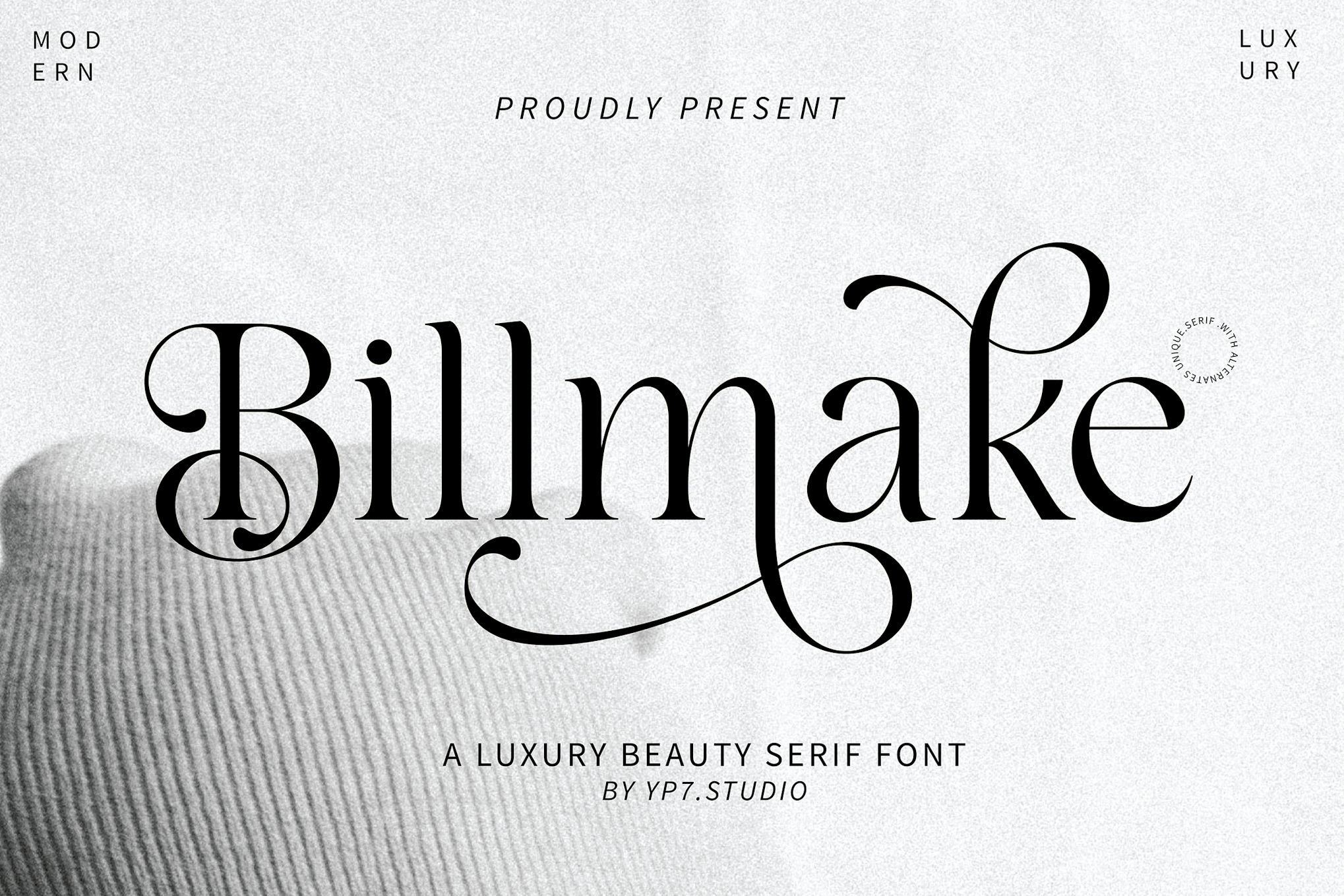
Luxury Serif Font
Luxury Serif Font is perfect for high-end fashion branding, premium jewelry advertising, upscale hotel identity, luxury automobile marketing, exclusive resort materials, sophisticated wine labels, elite magazine layouts, prestigious award ceremonies, and opulent wedding stationery.
What makes Luxury Serif Font exciting is its impeccable refinement that embodies the pinnacle of typographic elegance and sophistication. This exquisite typeface features meticulously crafted serifs, graceful stroke contrasts, and aristocratic proportions that instantly communicate exclusivity and premium quality. The font's distinguished character creates an immediate sense of prestige and luxury, making it indispensable for brands that cater to affluent clientele who demand nothing less than perfection in every detail of their luxury experience.
Luxury Serif Font family includes refined weight variations: Light, Regular, Medium, SemiBold, Bold, and Black, each available in both roman and italic styles. This prestigious collection provides 12 elegantly crafted fonts that enable designers to create sophisticated typographic hierarchies while maintaining the luxurious aesthetic throughout comprehensive brand systems and high-end applications.
Design professionals value Luxury Serif Font for its timeless elegance and versatile application. The font's balanced contrast and refined serifs work beautifully in both intimate packaging details and grand architectural installations. Its sophisticated presence appeals to discerning customers who associate quality typography with superior products and services.
The comprehensive character set includes elegant ligatures, stylistic alternates, premium symbols, and extensive multilingual support that enhances the font's luxurious appeal. Luxury Serif Font Free Download enables creative professionals to explore the complete range of typographic possibilities before investment.
Whether used for heritage luxury houses or contemporary premium brands, Luxury Serif Font consistently delivers exceptional typography that communicates excellence, exclusivity, and enduring value that transcends fleeting trends and maintains prestige across generations.